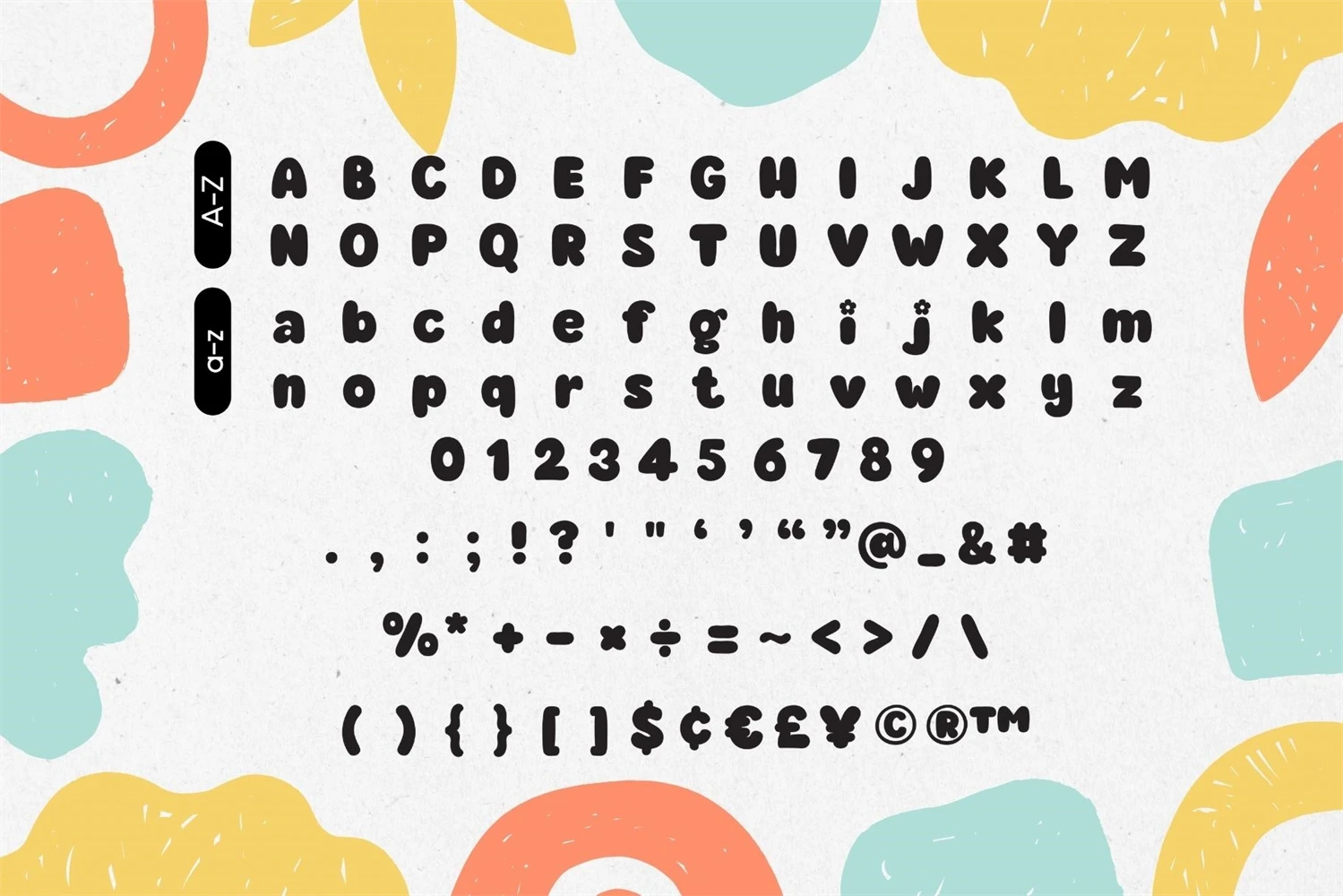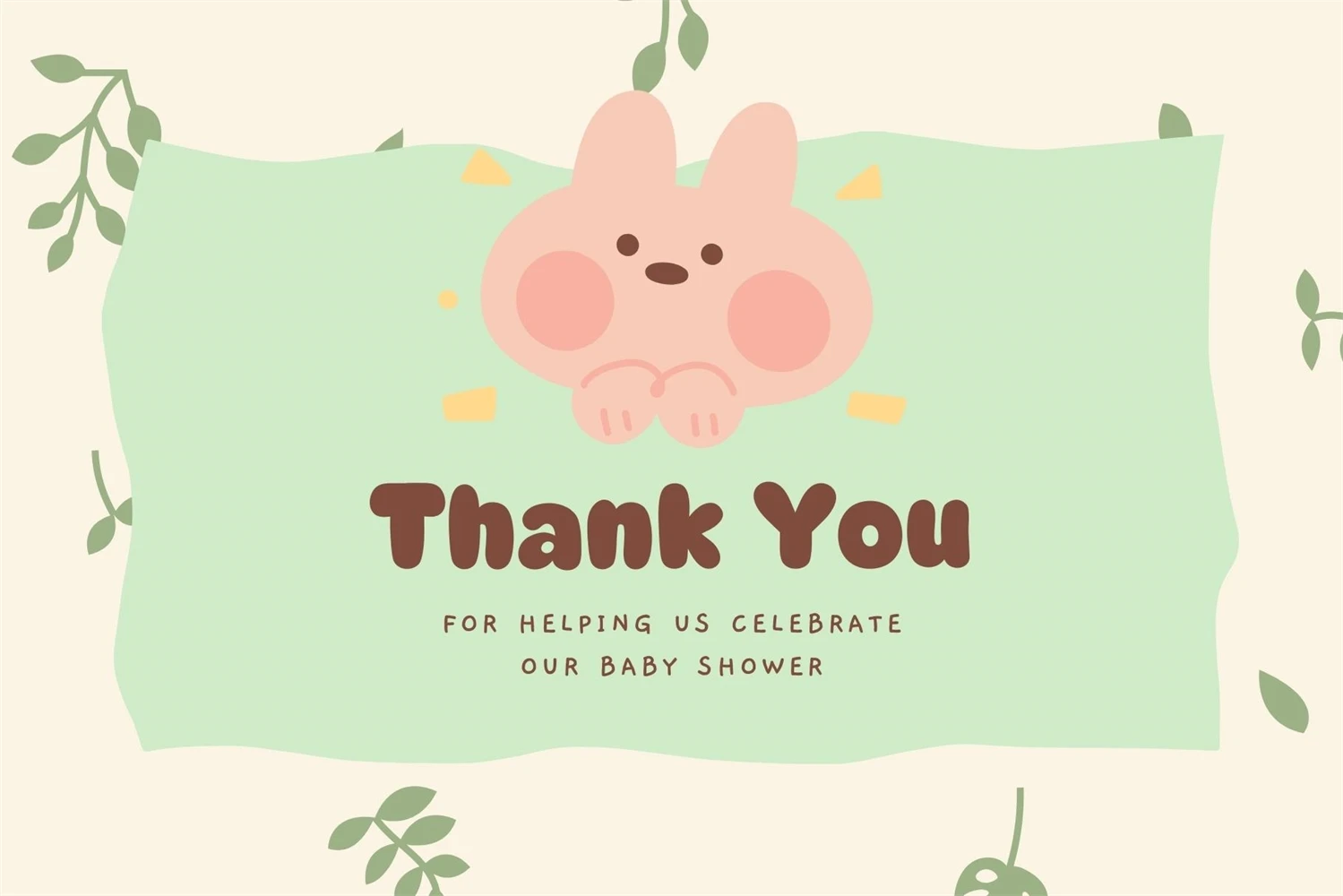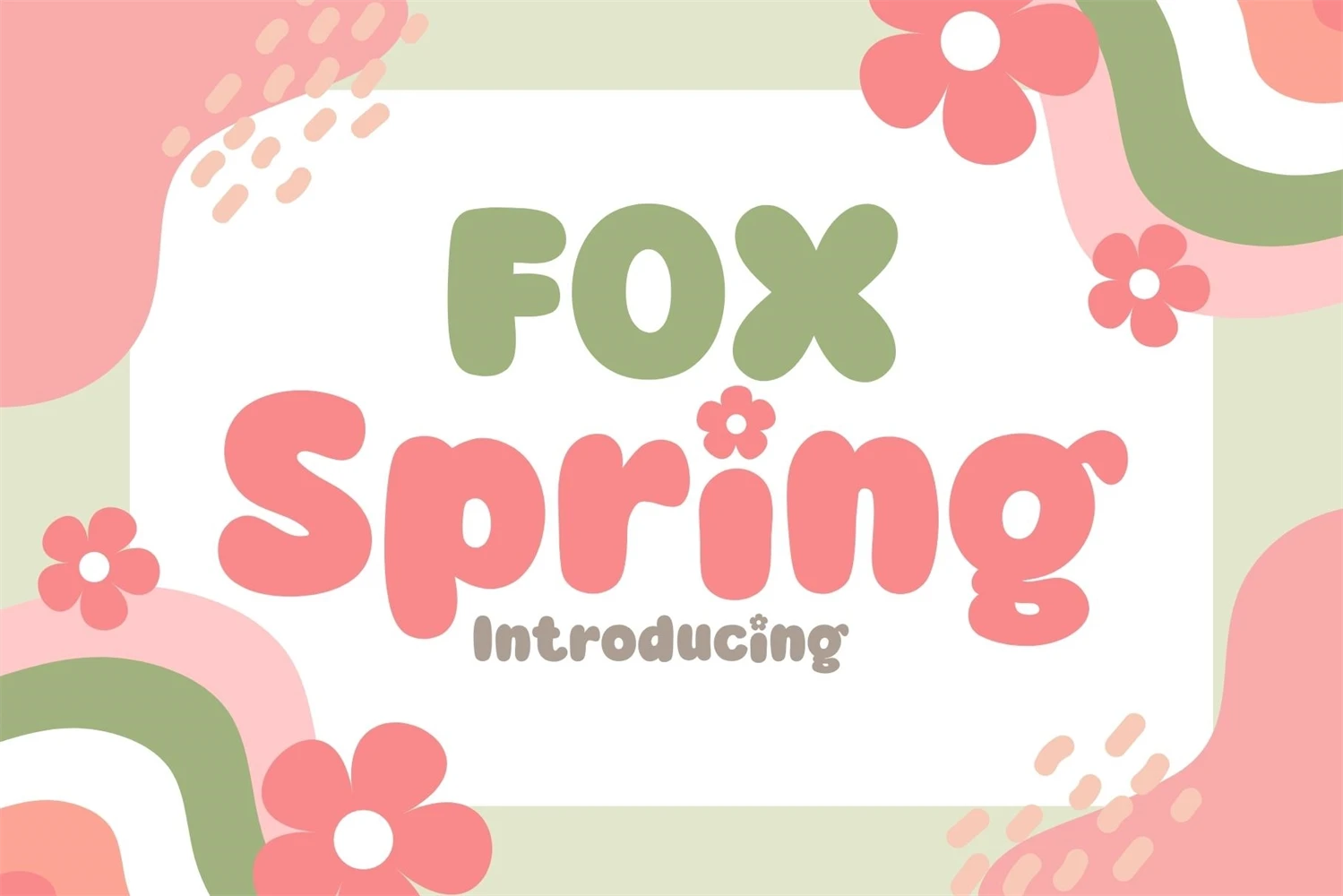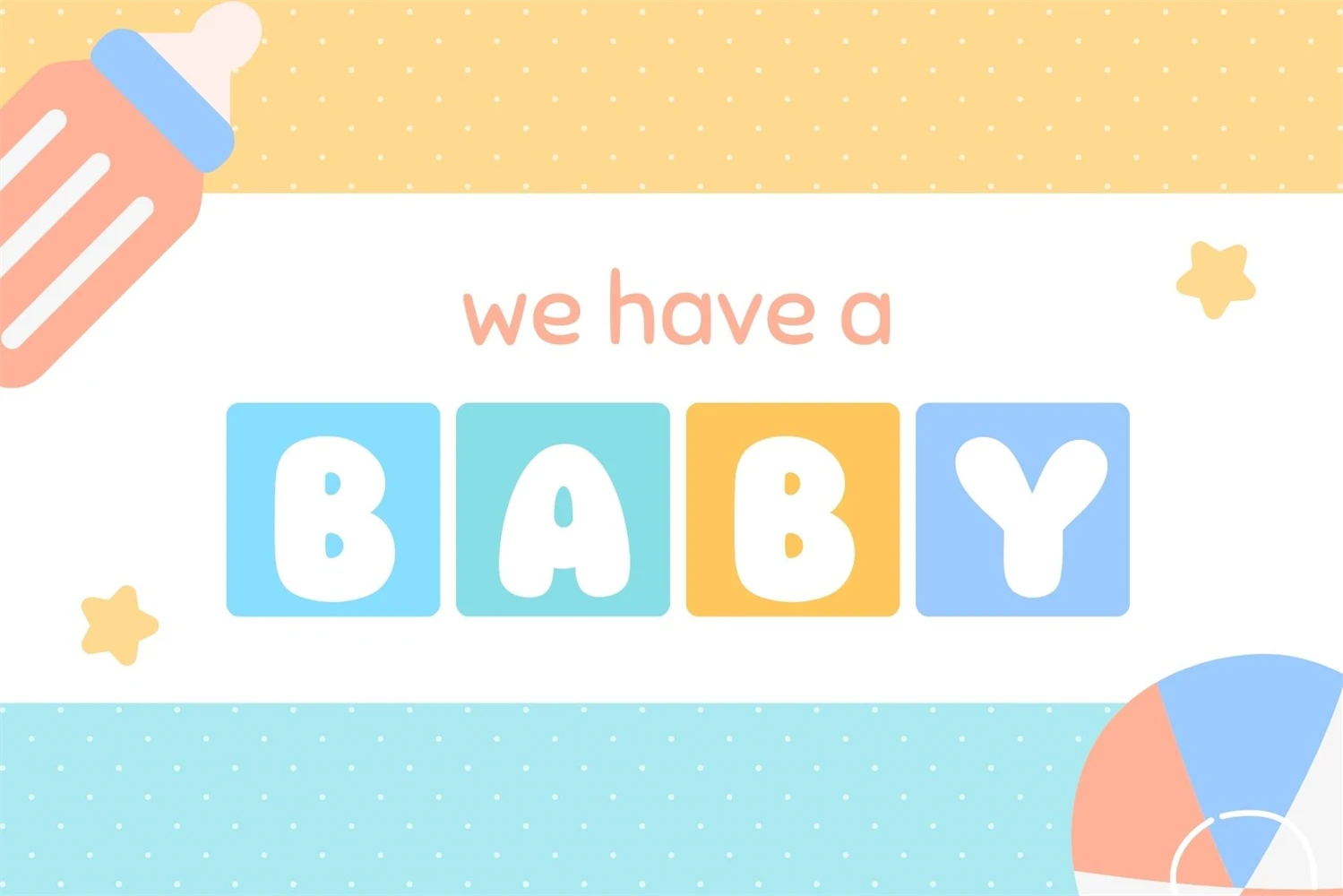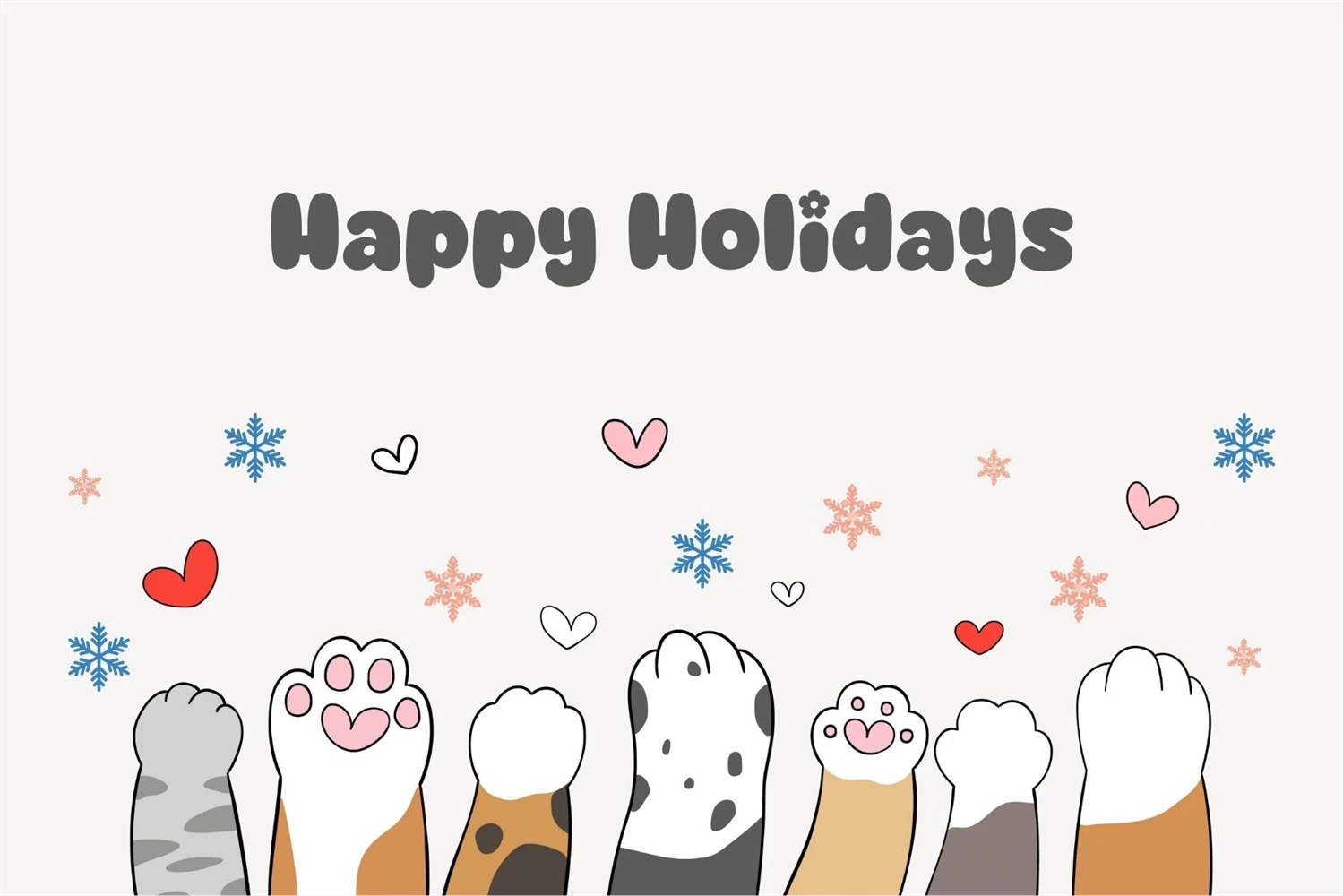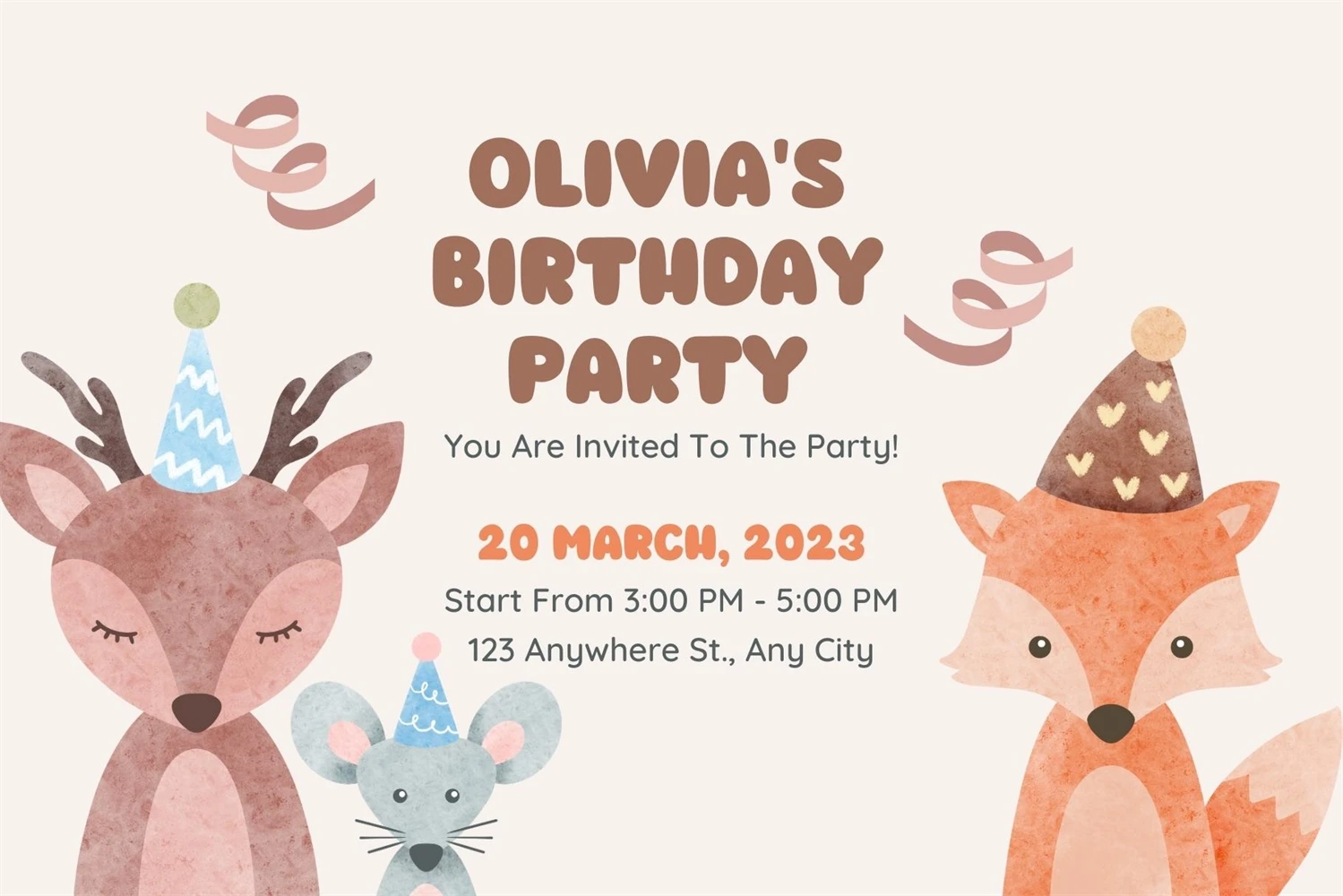
Fox Spring is a cute and colorful display font. It embodies playfulness and authenticity and is the perfect choice for any children activity or school project. Add this chunky lettered font to your designs and notice how it makes them come alive!